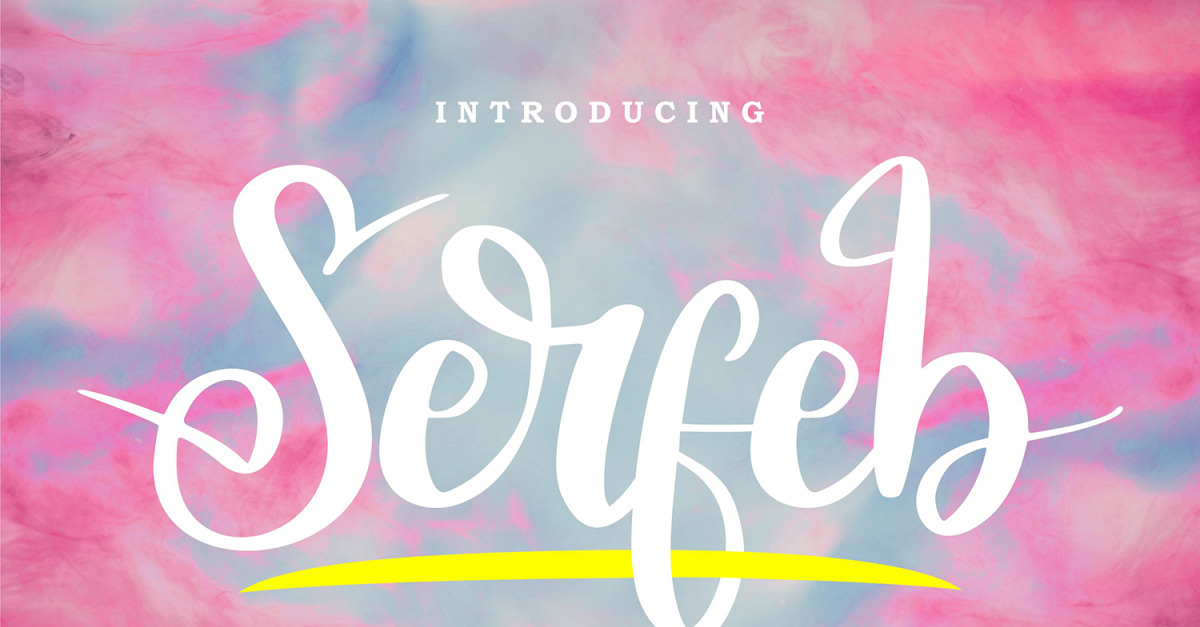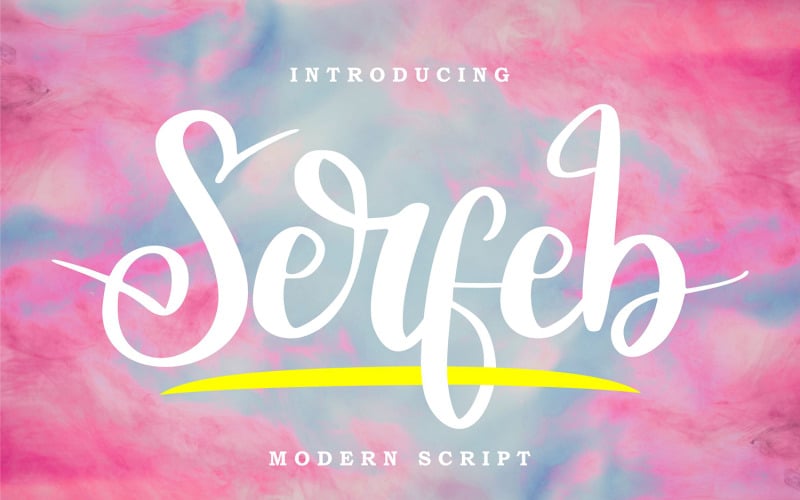
Serfeb | Modern Cursive Font
**Serfeb | Modern Script Font** with a calligraphy style, So beautiful on invitation like greeting cards, branding materials, business cards, quotes, posters, and more!